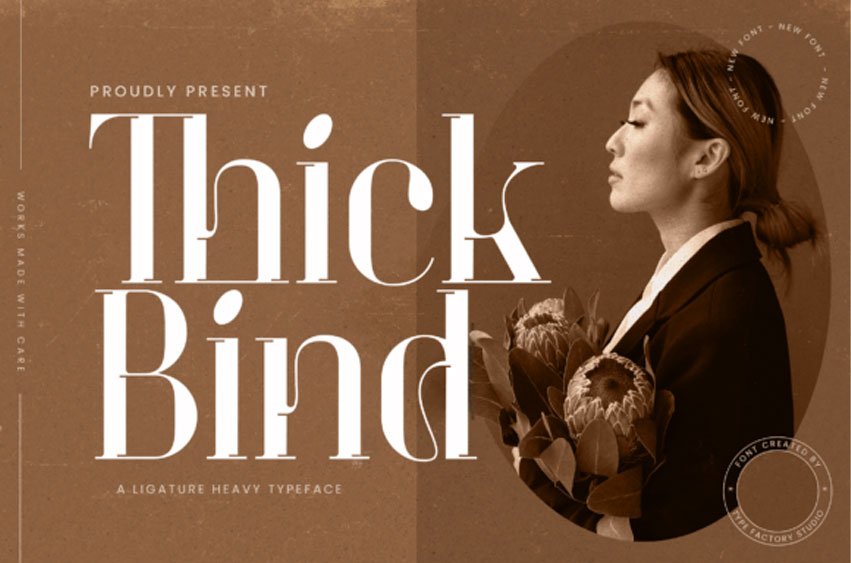
Thick Bind Font
Thick Bind Font is a fashion display serif typeface featuring high contrast strokes, sharp serif details, and expressive ligatures. The letterforms combine strong vertical stress with elegant curves, creating a refined editorial character suited for modern branding and visual identity systems.
The uppercase set delivers structured, fashion-oriented proportions, while the lowercase includes distinctive alternates and ligatures that allow dynamic headline compositions. The thin-to-thick transitions give the typeface a dramatic rhythm, making it effective for large-scale typography.
Thick Bind works well for fashion branding, beauty packaging, magazine headlines, logo design, social media graphics, boutique identity, product labels, and contemporary editorial layouts.